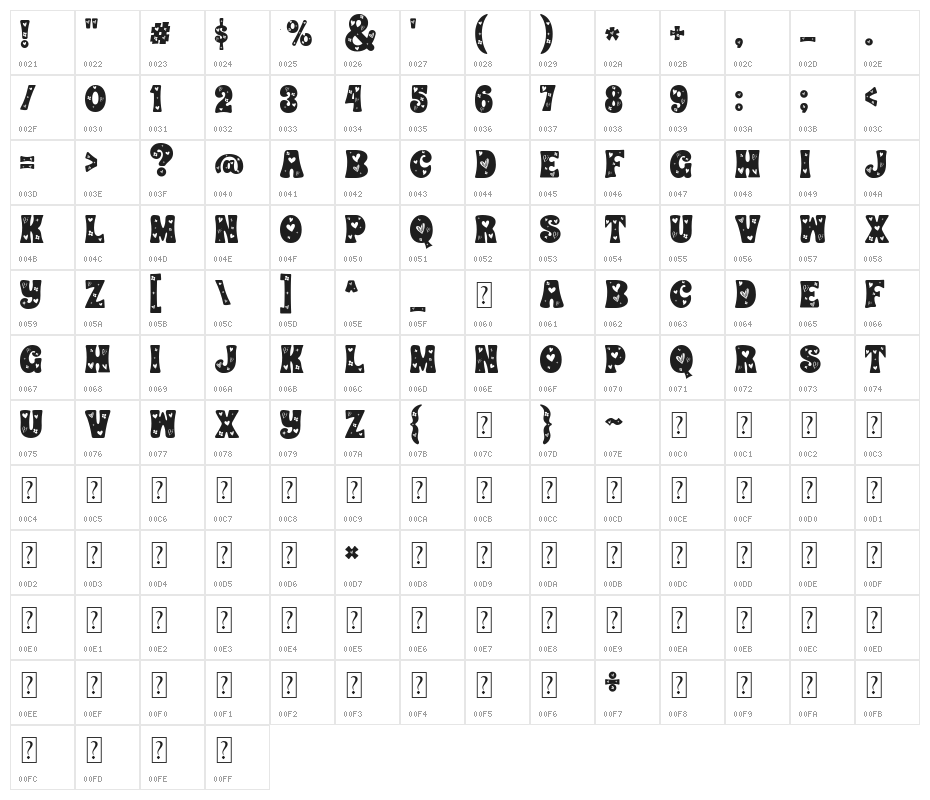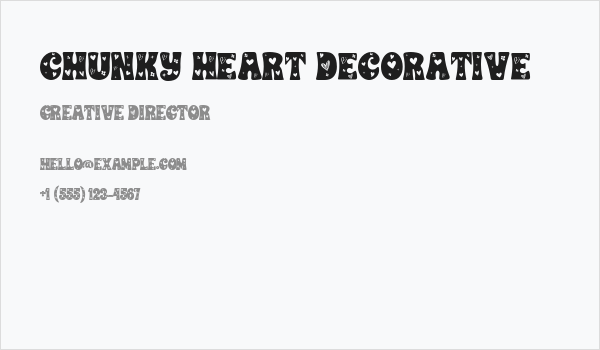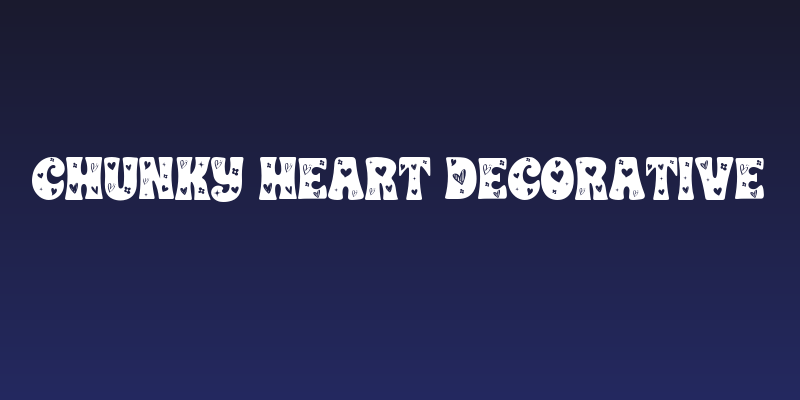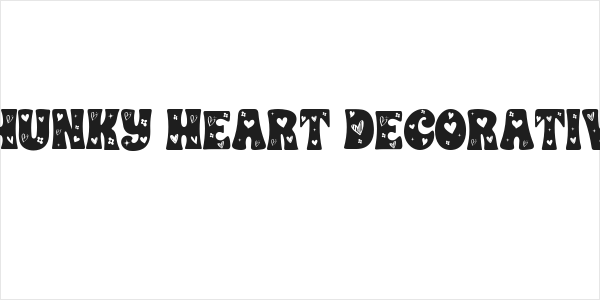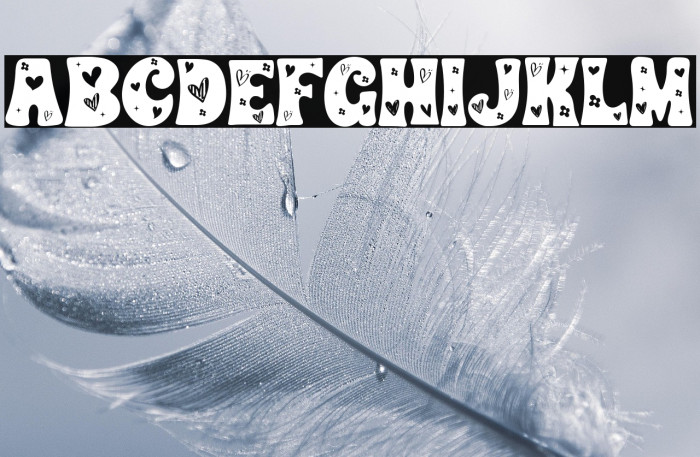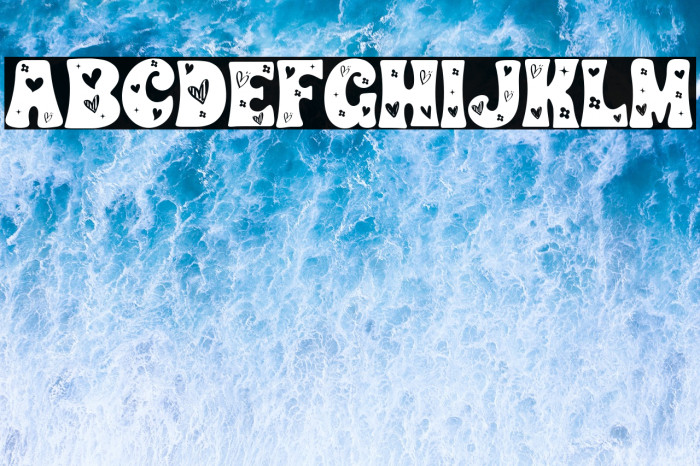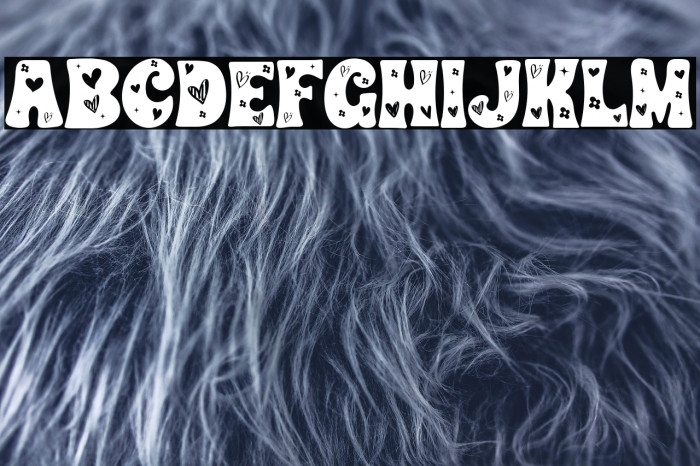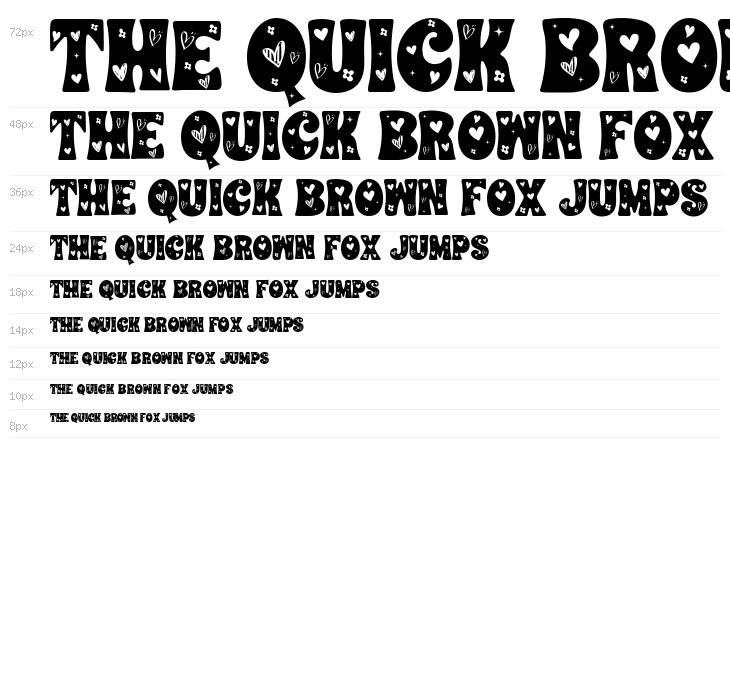
CHUNKY HEART DECORATIVE Font
CHUNKY HEART DECORATIVE Description
This playful and decorative font features bold, chunky letters adorned with whimsical heart and floral motifs. The characters are designed with a fun and lively aesthetic, making them perfect for projects that require a touch of charm and creativity. The uppercase and lowercase letters maintain a consistent style, with each character uniquely embellished. The numbers and special characters follow the same decorative theme, ensuring a cohesive look across all text elements.
| Proposed Projects | Ideal for children's books, playful invitations, greeting cards, and creative branding projects. |